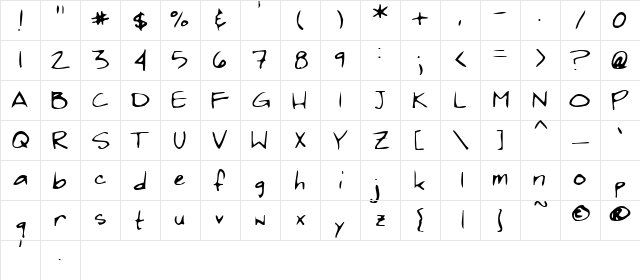
PenPalOne2 Regular
Design Context for PenPalOne2 Typeface
PenPalOne2 is a composed and adaptable typeface that performs quietly and consistently across a wide range of design contexts.